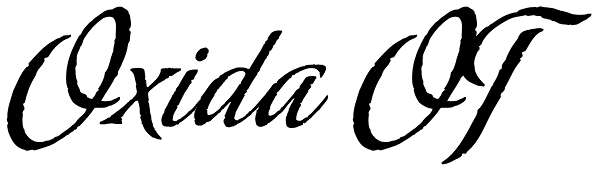
Oxida OT
The unmistakable hand of Angel Koziupa and the technical expertise of Alejandro Paul brings us once more the kind of calligraphy that reads softly yet commands attention. This time around, Angel's statement adds a slightly coarse and rusty aura to...